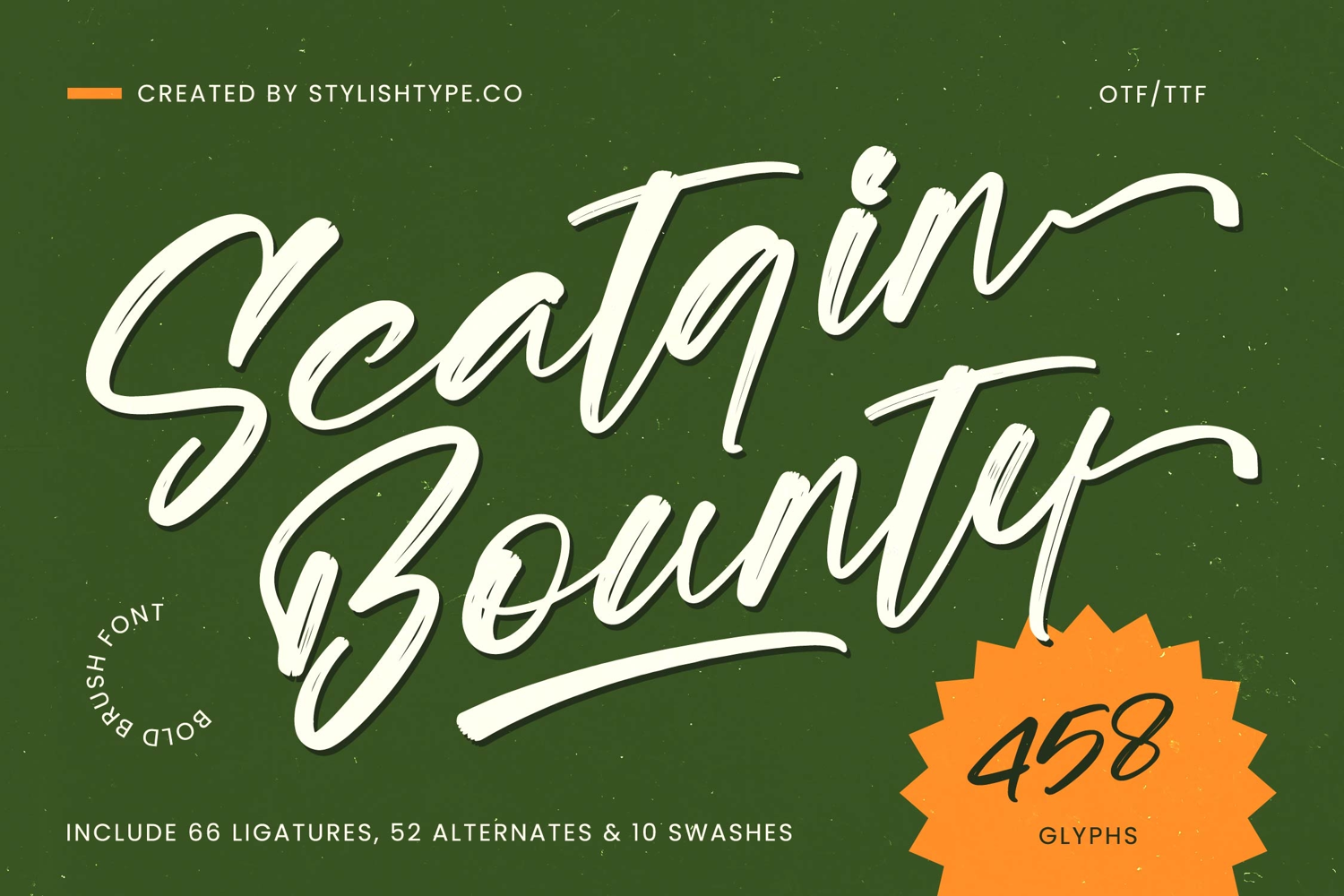
Scatqin Bounty - Bold Brush Font Script
Scatqin Bounty
Scatqin Bounty Italic
Scatqin Bounty - Bold Brush Font Script. This dynamic brush script typeface embodies an authentic, hand-crafted aesthetic, delivering an immediate and unforgettable impact to any project. Its bold strokes and natural flow convey a sense of genuine creativity and expressive personality, making it the perfect choice for making a distinct statement.